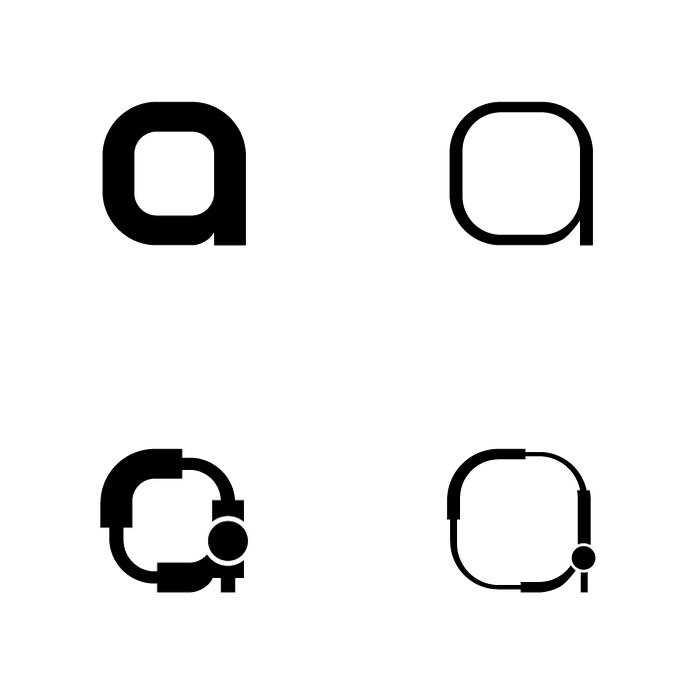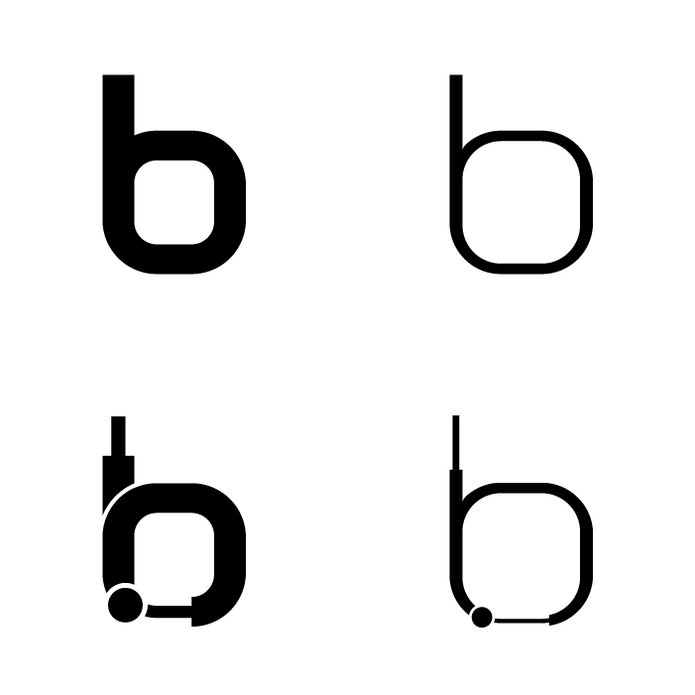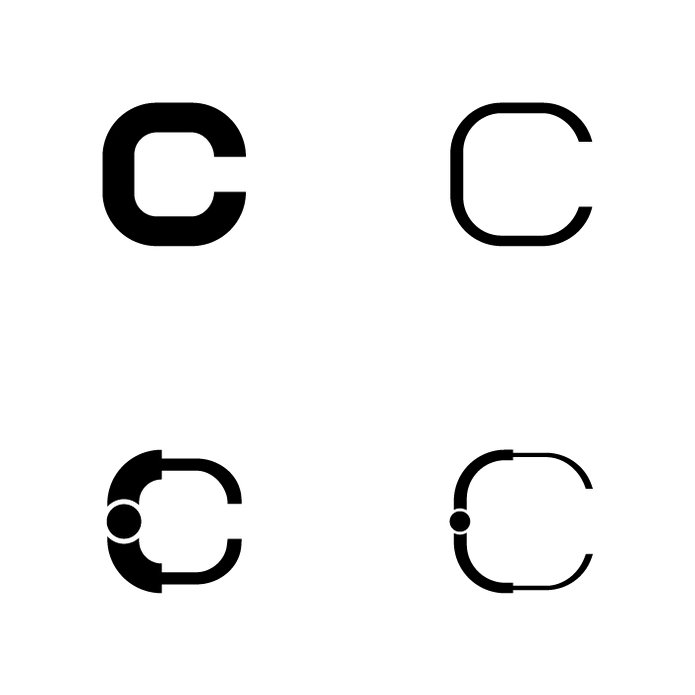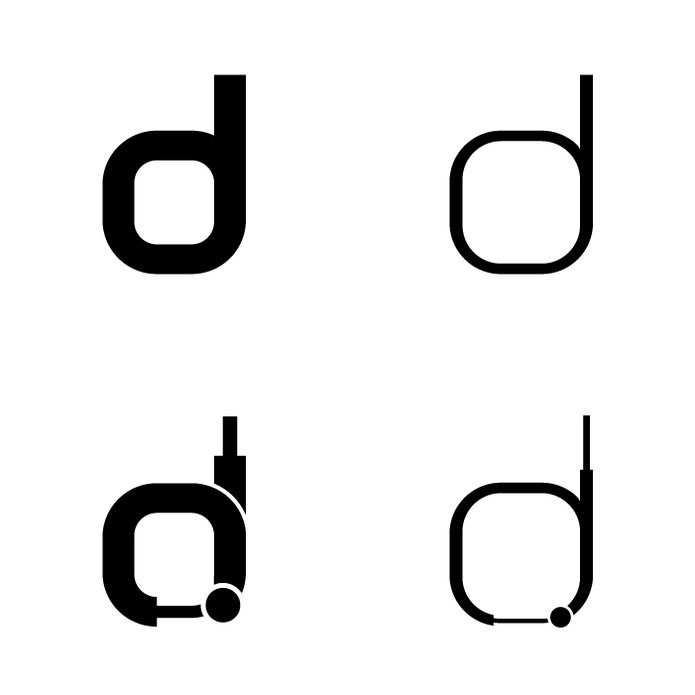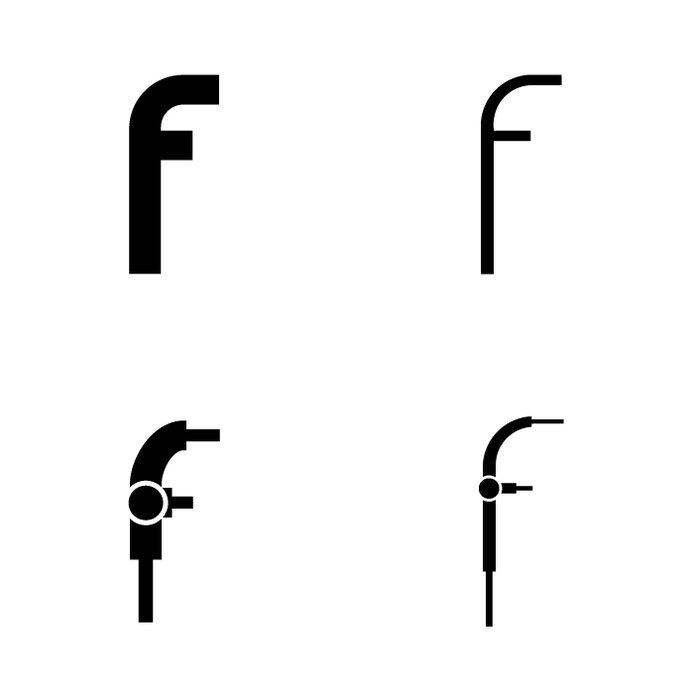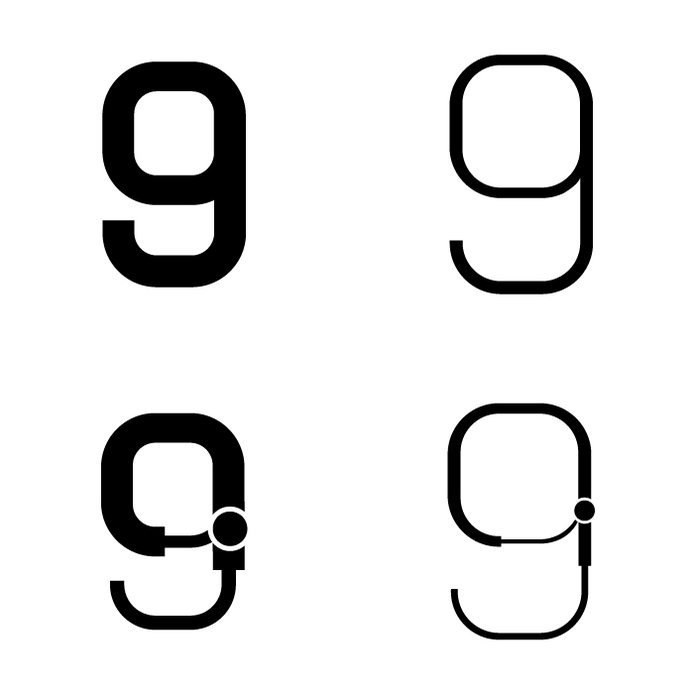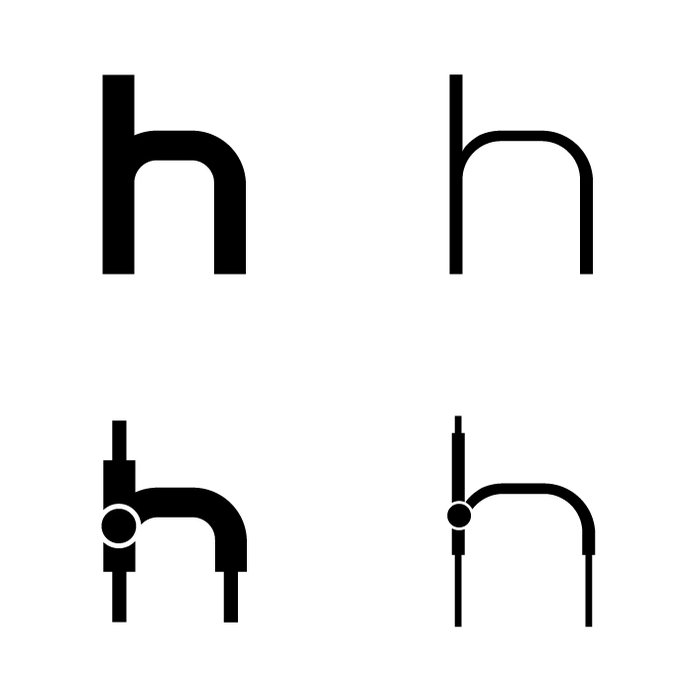
This is a Typeface that I designed in Toronto, Canada.
I got the inspiration from things that I saw in the city.
I based on the combination of round a strait corners
of things that I saw in the city.